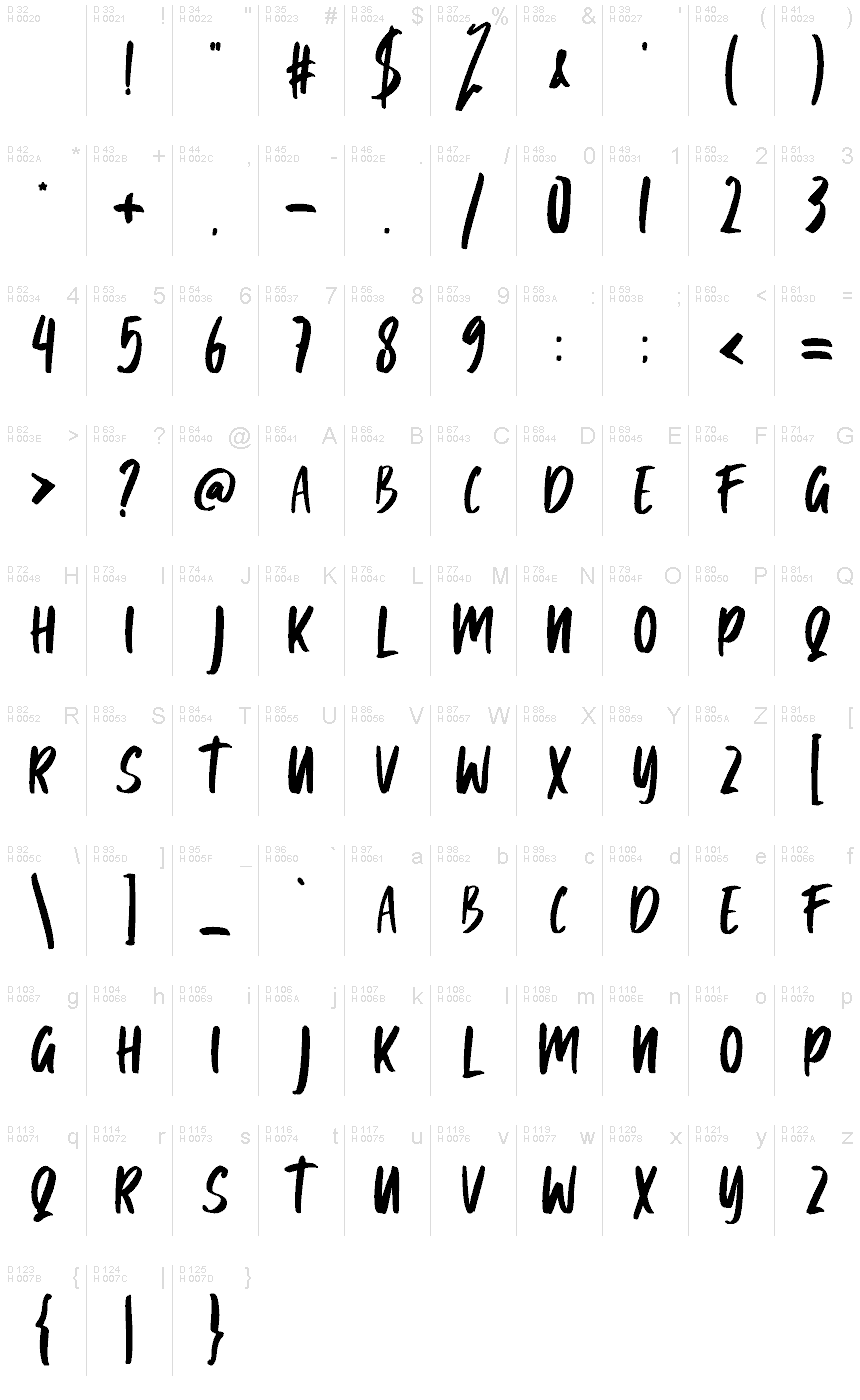
Sikerly
Sikerly font by Skiiller Studio is a free handwritten font that embodies an expressive and modern style. With its condensed form, brushstroke appearance, and casual yet artistic flair, this typeface creates an approachable atmosphere suitable for a wide range of design needs.
Use Sikerly in branding projects, advertisements, product packaging, or posters. Use it to title magazines or books as well as in events’ promotional materials or advertisements. Whether you have websites or blogs dedicated to art and crafts, cooking recipes etc., this font will make these projects more special!